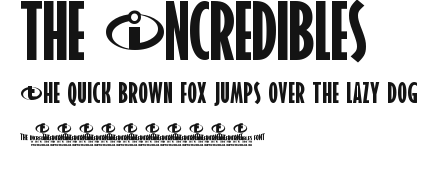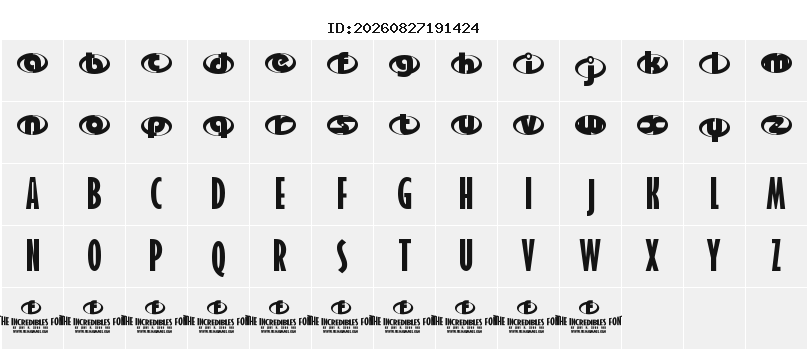
• Font Name: the Incredibles
About the Incredibles.ttf
the Incredibles.ttf is a modern, elegant sans-serif font designed for ultimate readability and visual harmony. Perfect for branding, headlines, web design, and print materials.